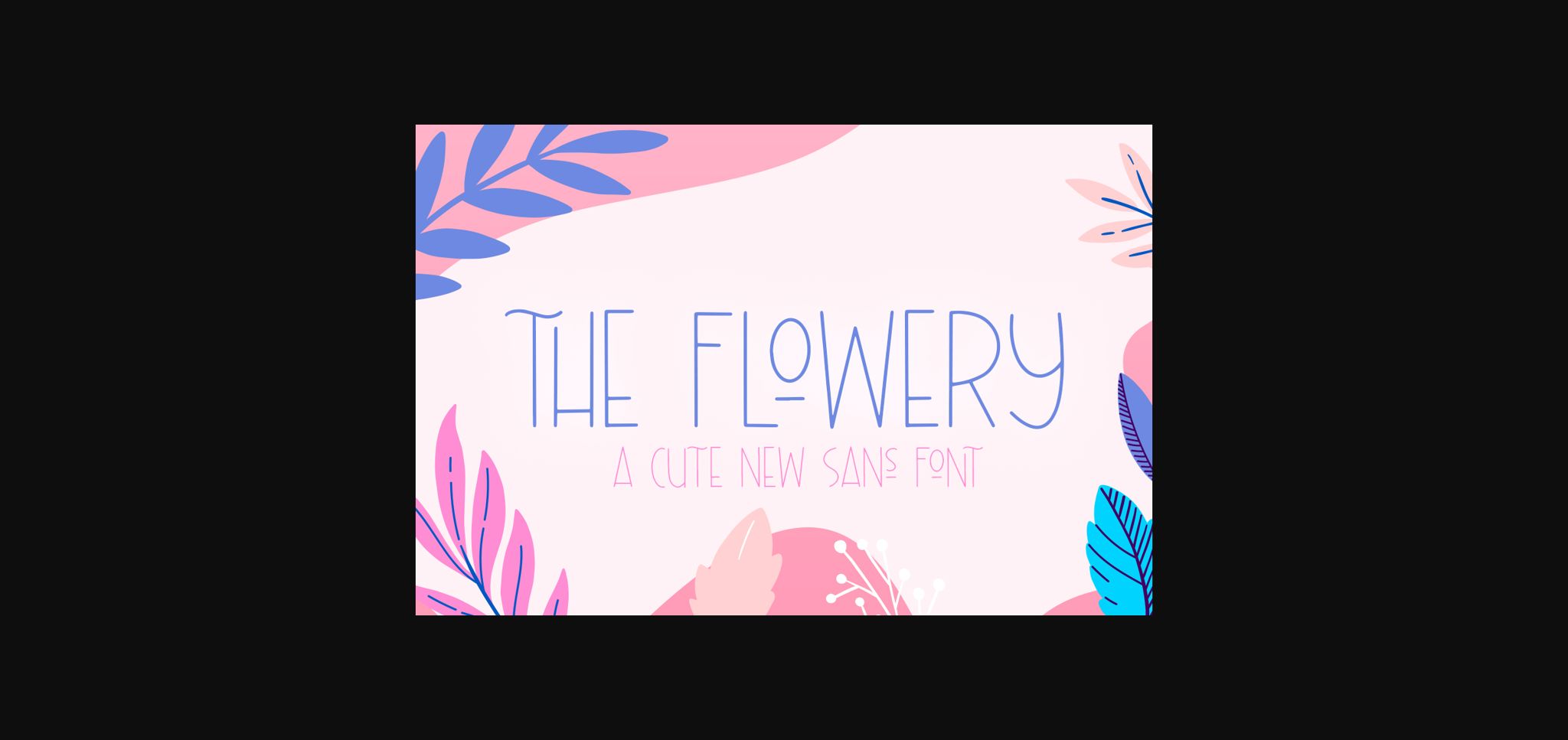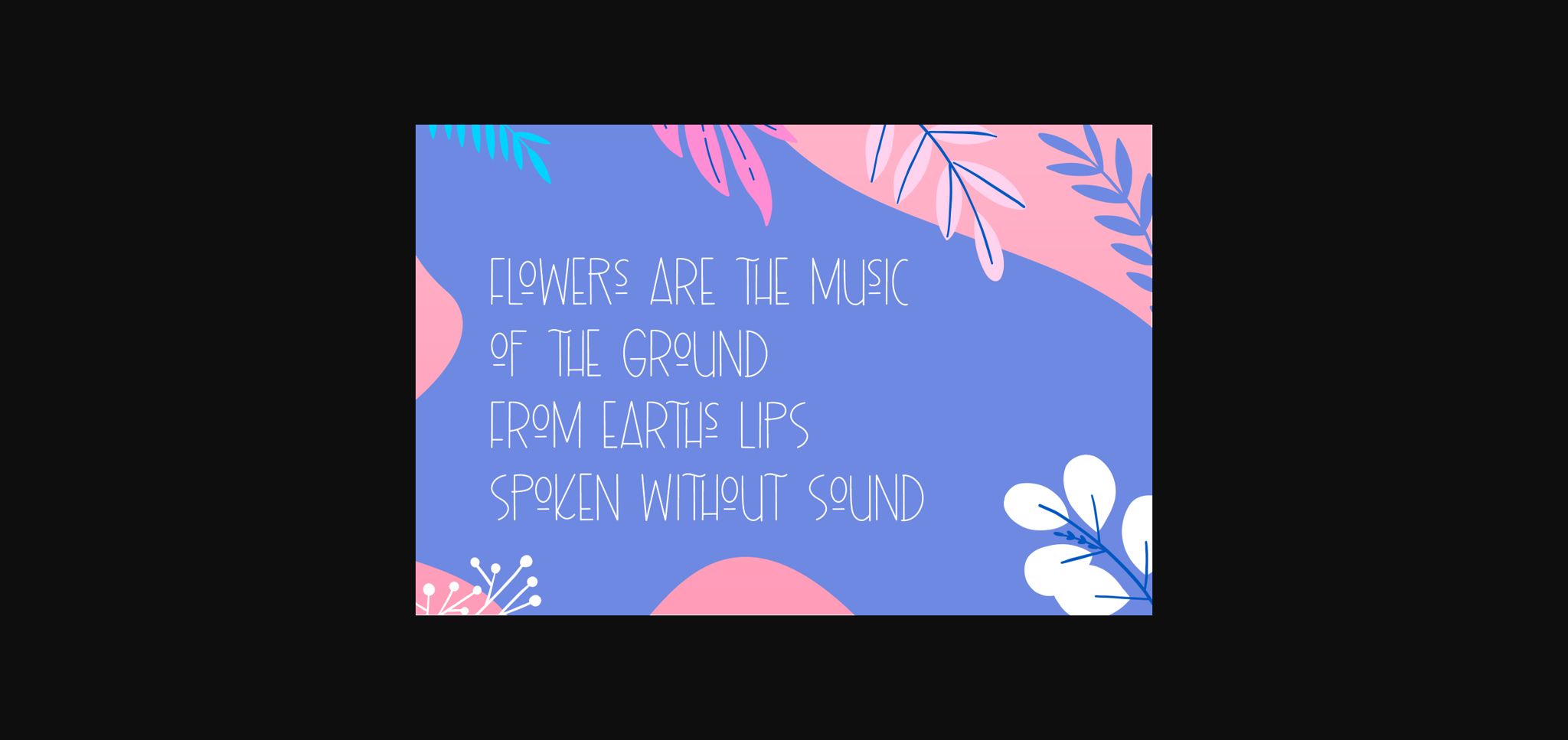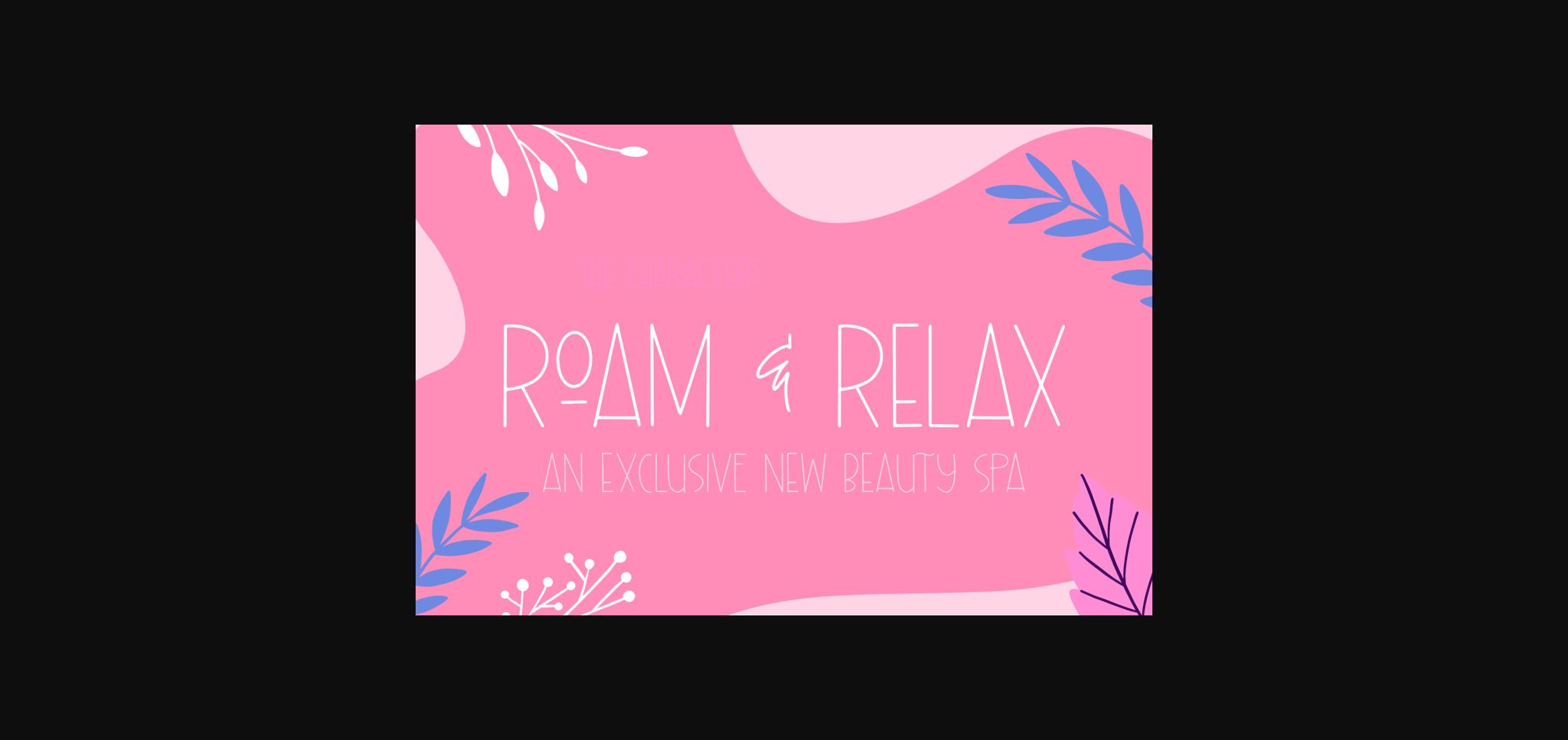
About The Flowery Font
The Flowery is a delicate and neat sans serif font. It can easily be matched to an incredibly large set of projects, so add it to your creative ideas and notice how it makes them stand out!